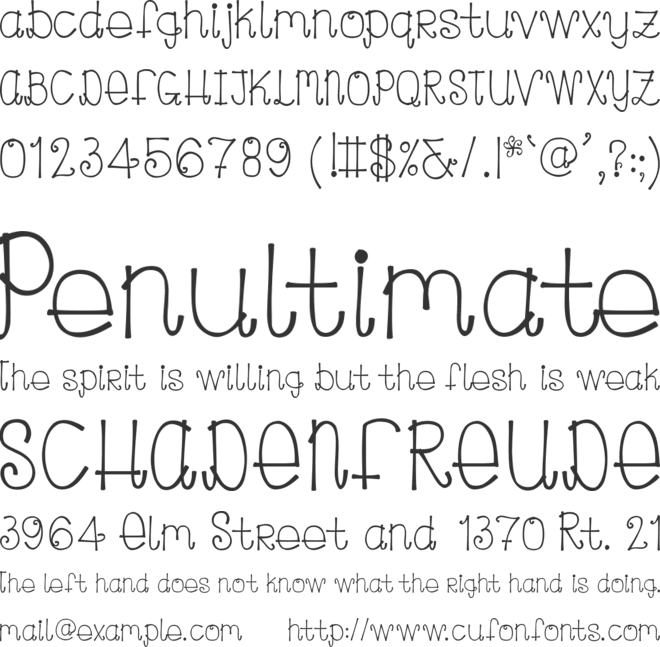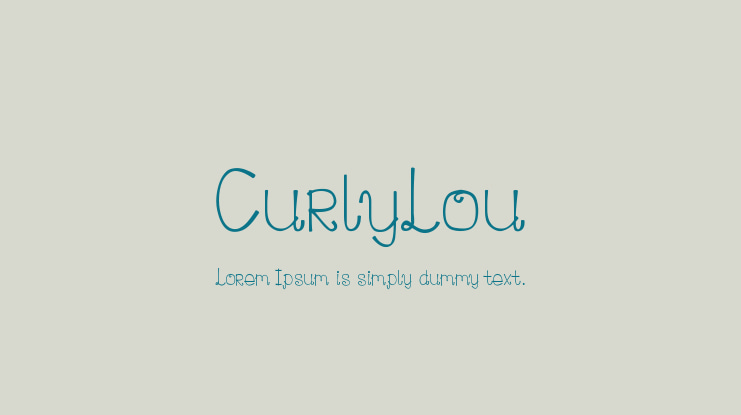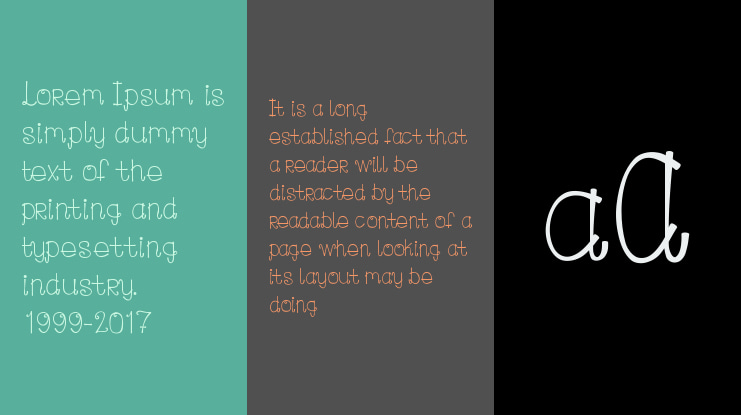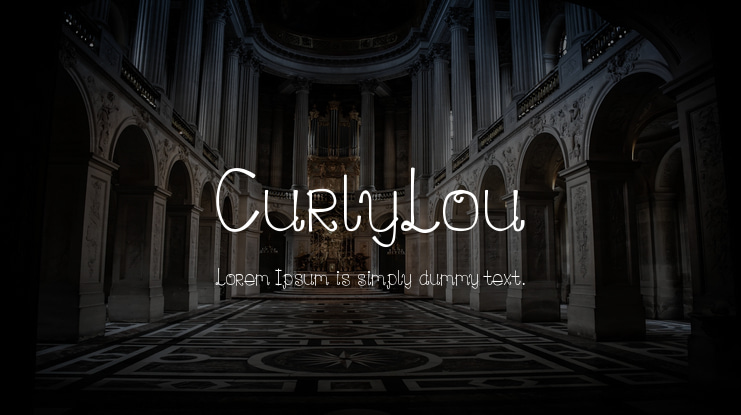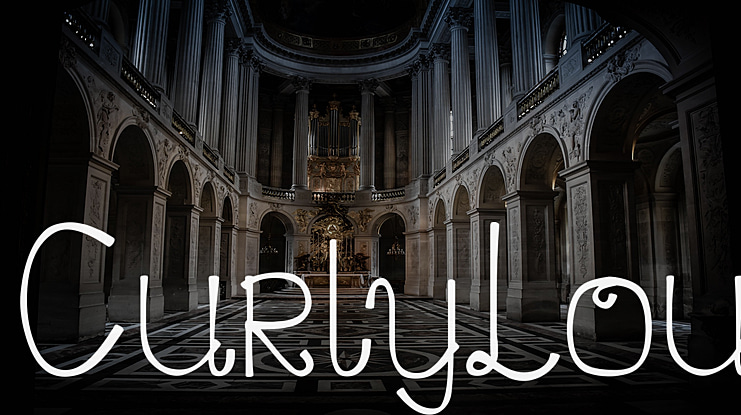
CurlyLou Font
A fun, playful font perfect for invitations, t-shirts, and much more. Free font is for personal use only. Please pay for commercial use by making a $10 donation.